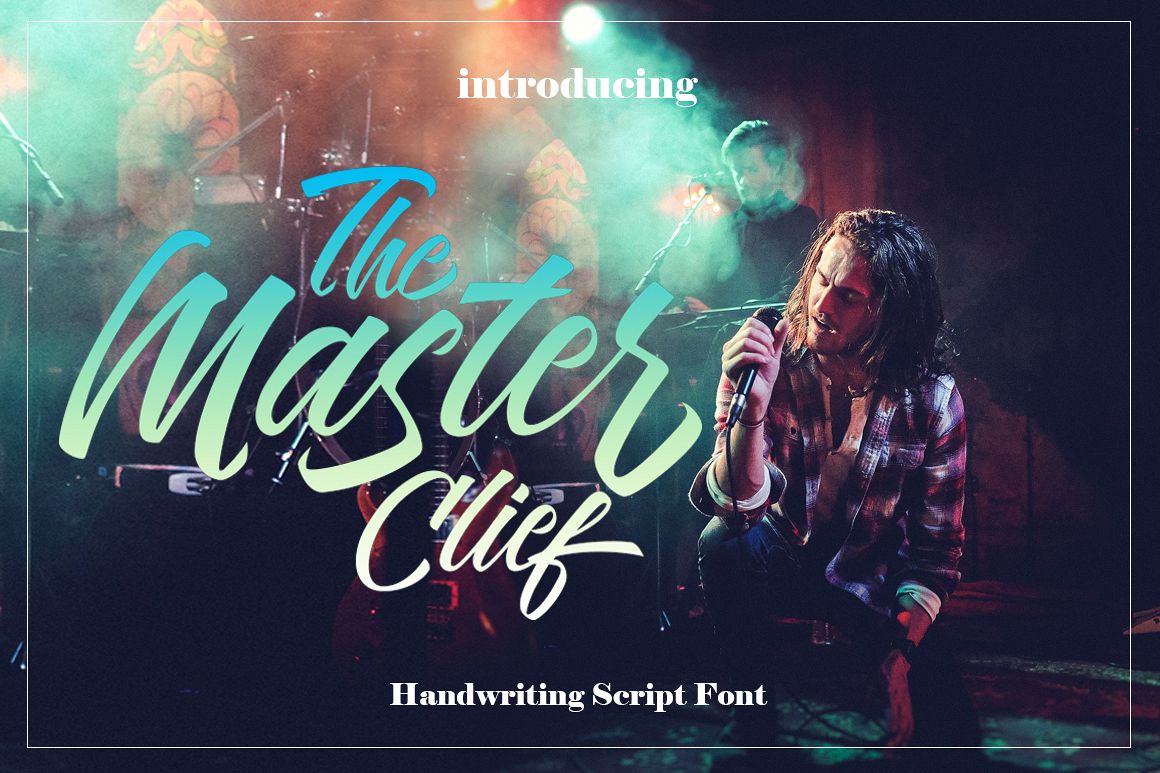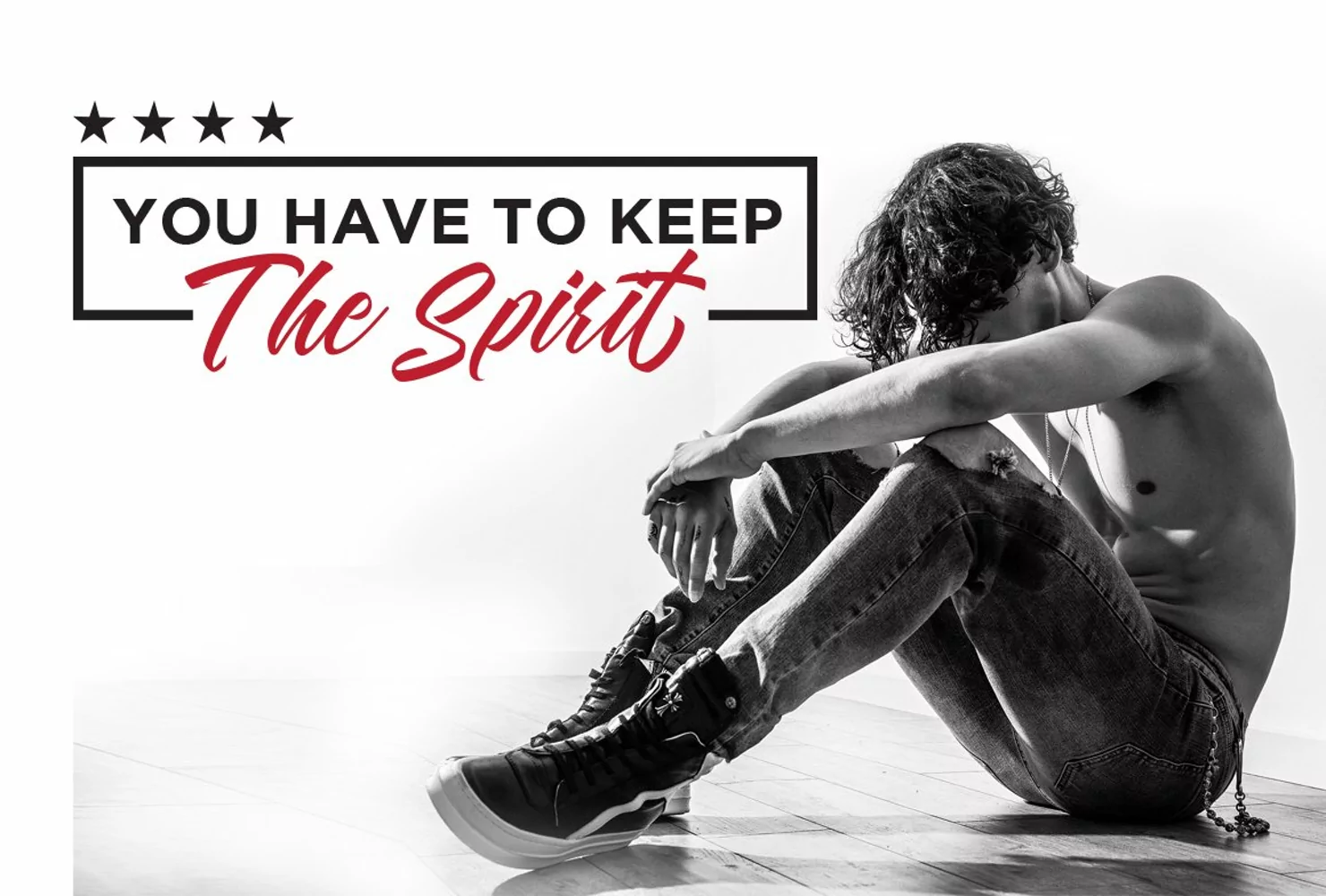
Master Clief font Script, a handmade font awesome, new fresh & modern script with a calligraphy style. Can used for anything from promotional material and handwritten quotes, to product packaging, labels,logo newsletters, posters, merchandise and branding projects.